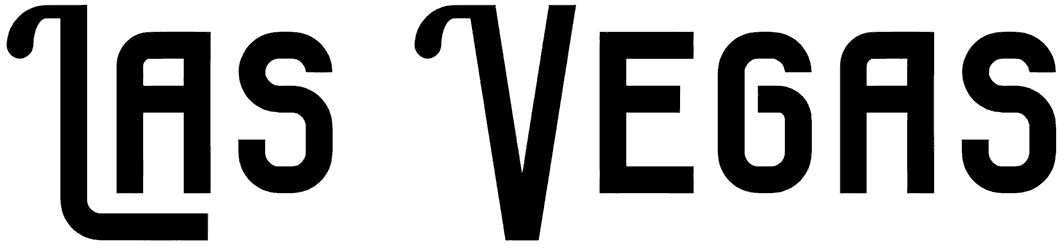
Las Vegas Font
Are you planning to give your design a unique form by keeping its modest and modern vibe? This Las Vegas font, with its striking letters, is able to bold your words and give them a distinct mood.
Las Vegas doesn’t possess lowercase letters, but with two sets of capitals, you can create various mixes. Test this fancy font for your future layouts, from headlines to book covers, and make them memorable.